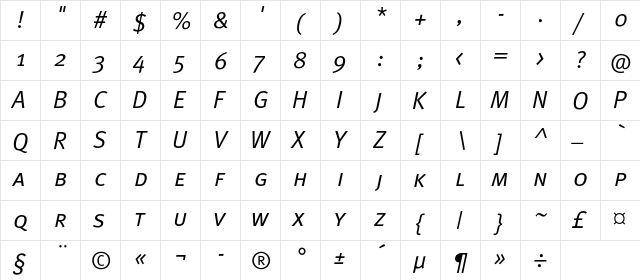
MetaNormalCapsC Italic
Design Context for MetaNormalCapsC Typeface
MetaNormalCapsC takes a measured approach to typography — its balanced proportions and neutral character make it a reliable workhorse for both digital and print work. The dynamic lean of this cut emphasises speed and emphasis in any layout.
Pro Tip: Use MetaNormalCapsC for emphasis, pull quotes, and subheadings where its slanted energy can add rhythm to the layout.